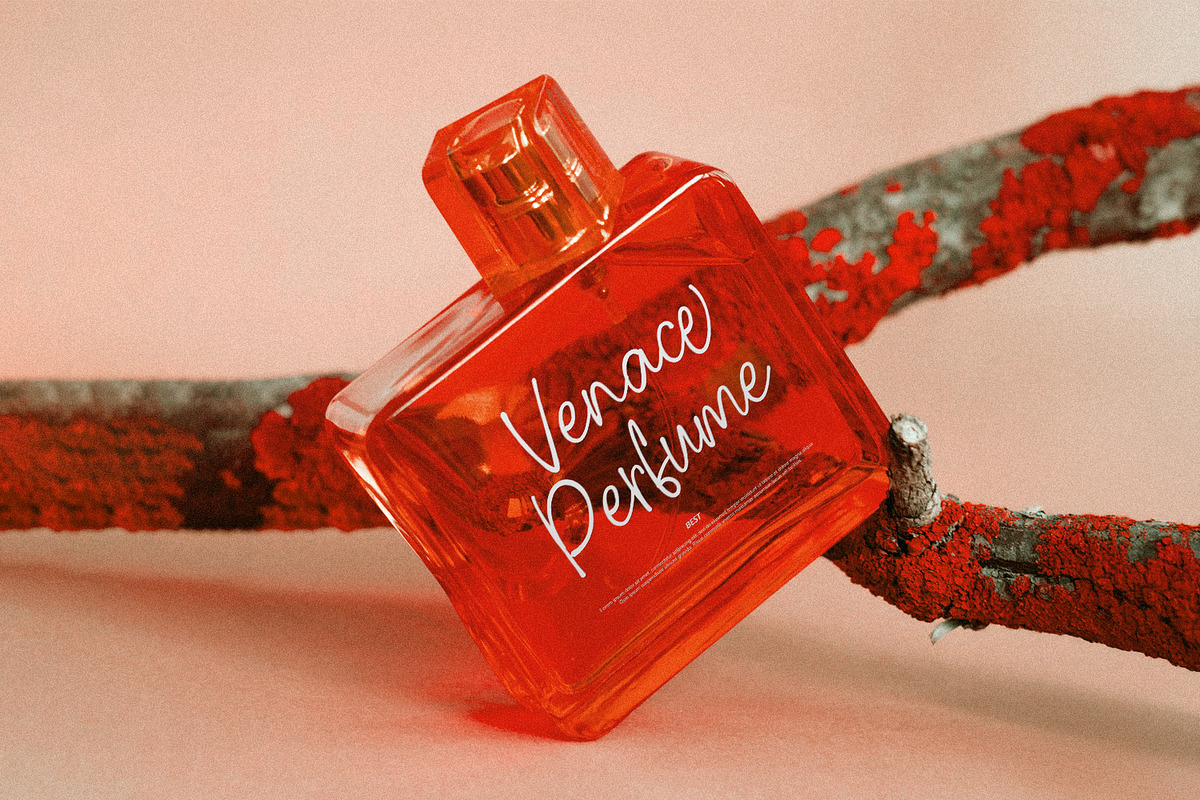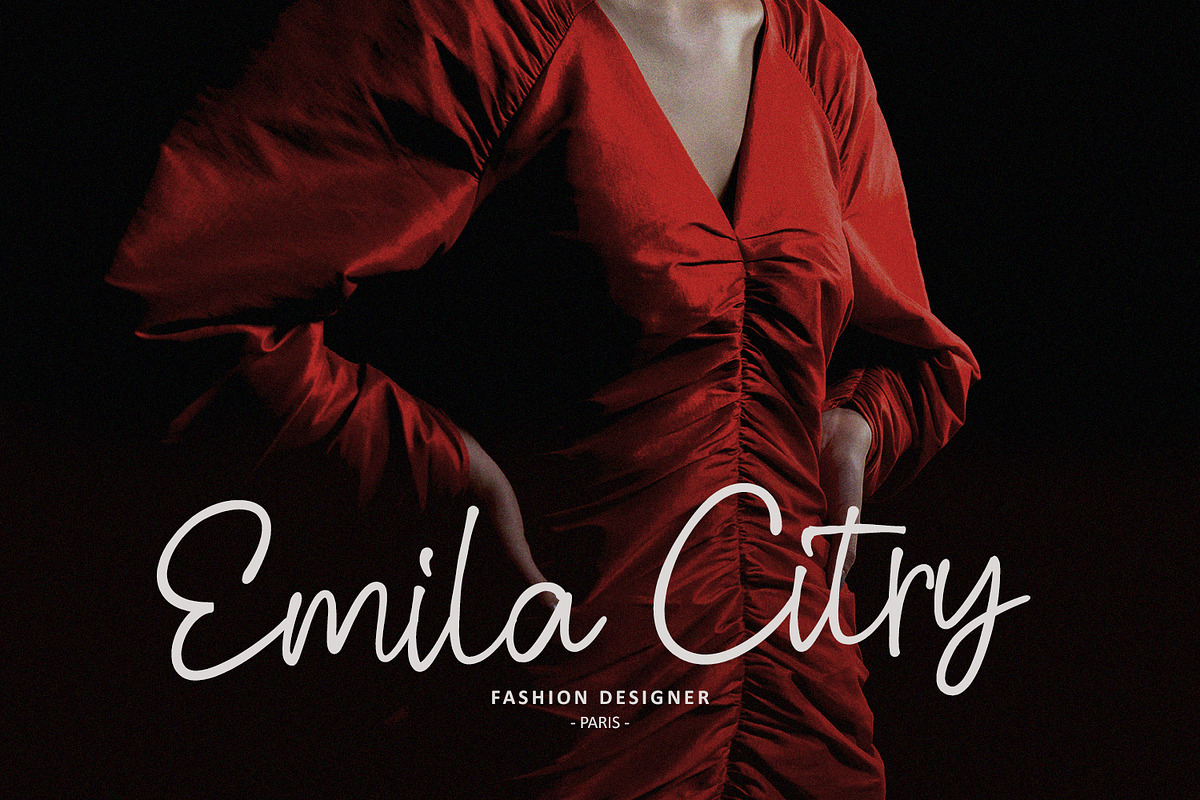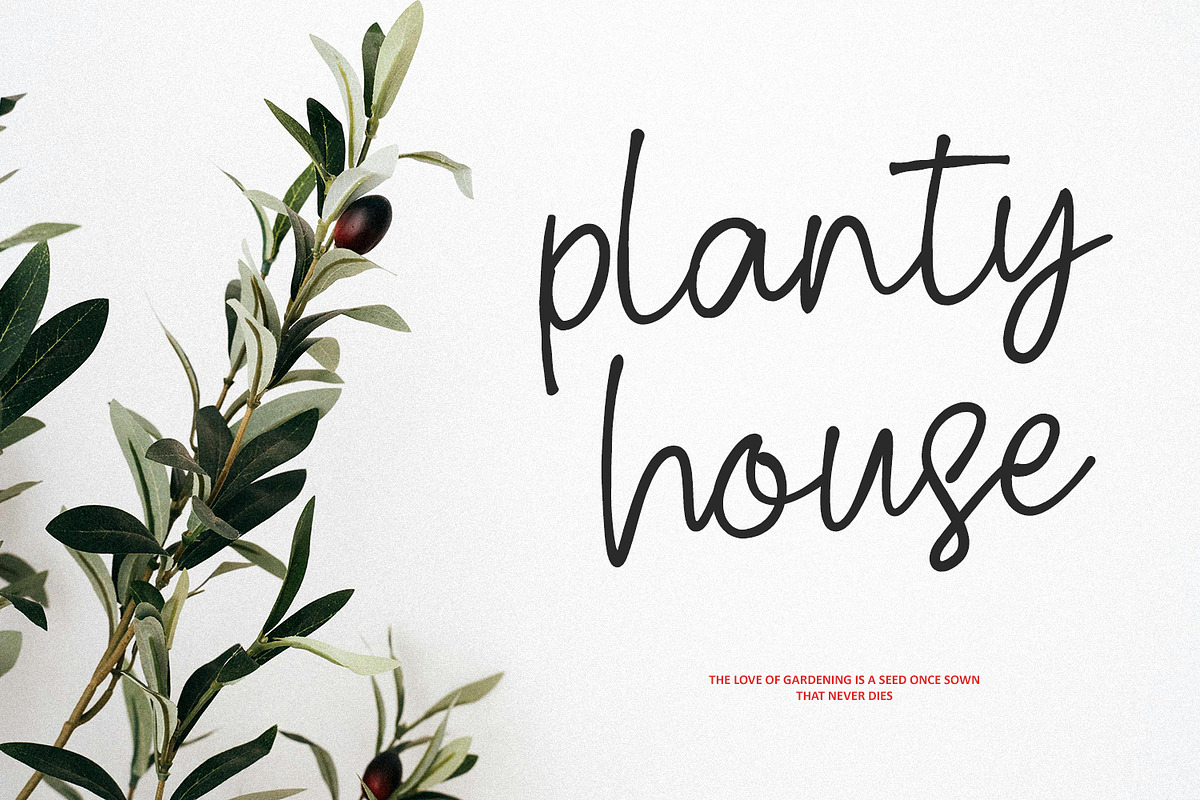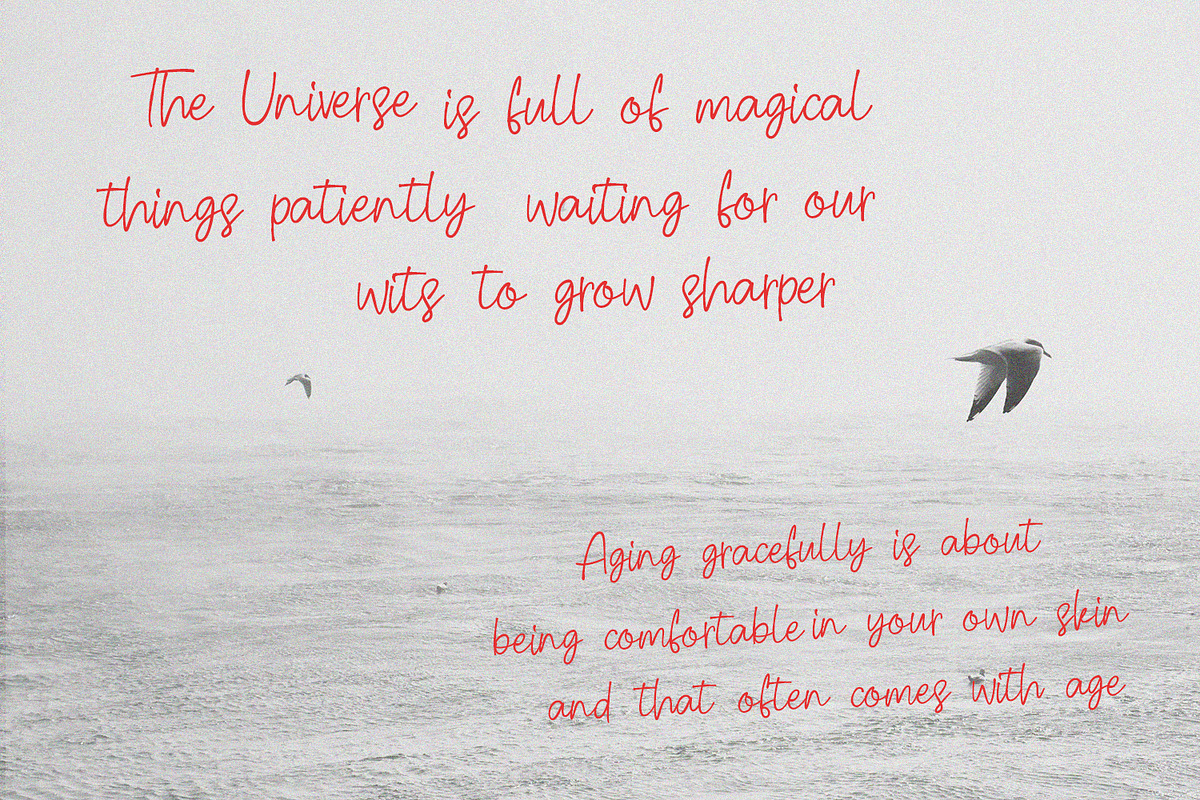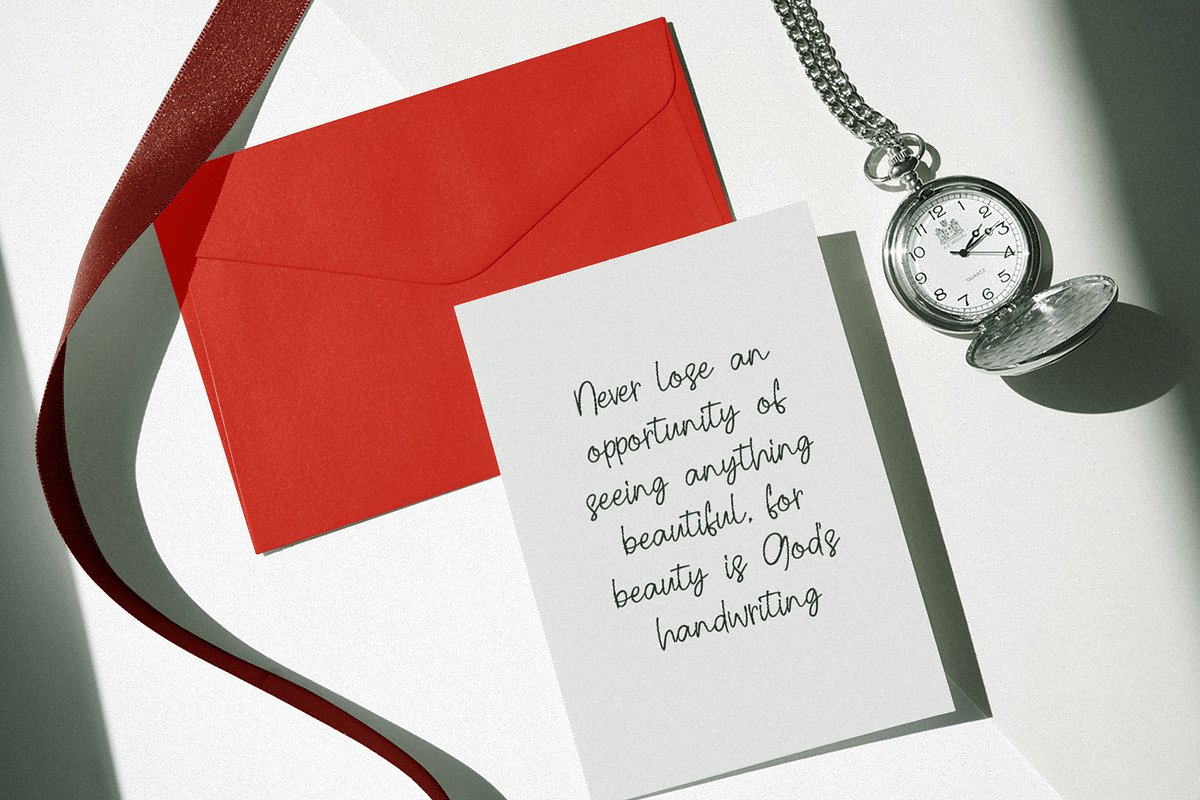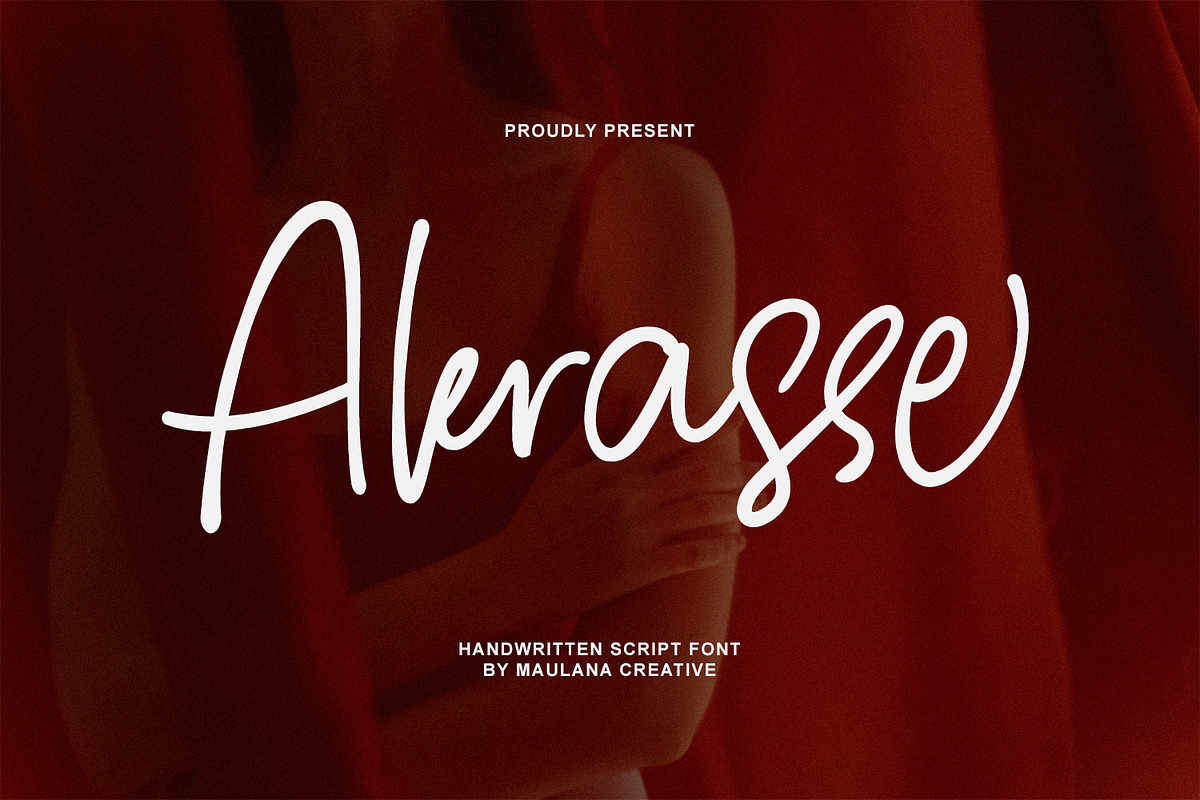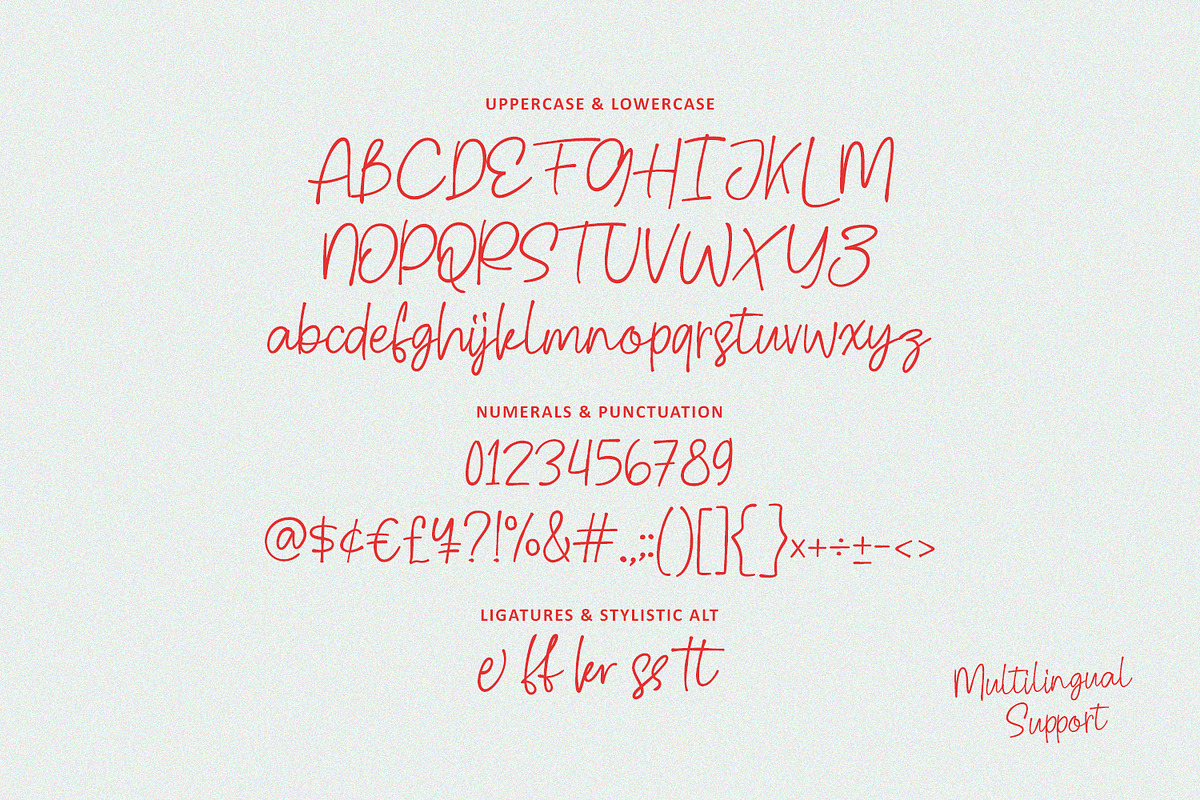
Akrasse Memorial Handwritten Script
Akrasse memorial handwritten script font. Fun character with a bit of ligatures and alternates. To give you an extra creative work. Akrasse font is good for logo design, Social media, Movie Titles, Books Titles, a short text even a long text letter and good for your secondary text font with script or serif. Make a stunning work with Akrasse font.